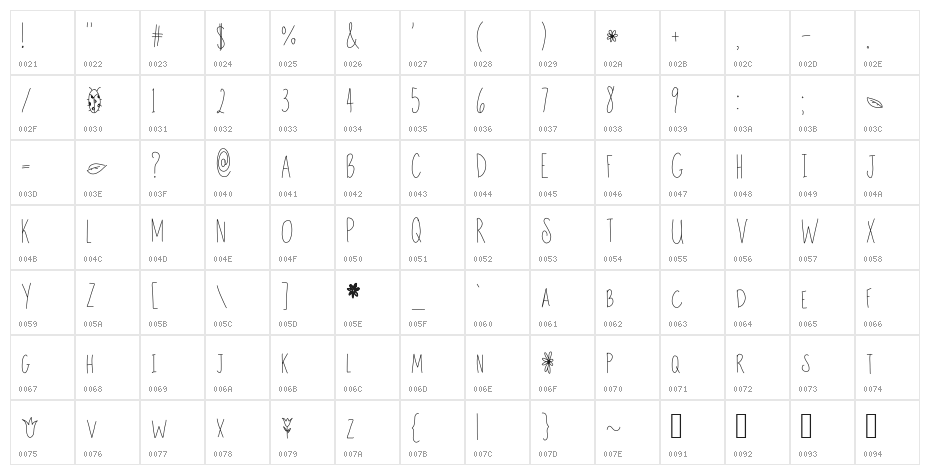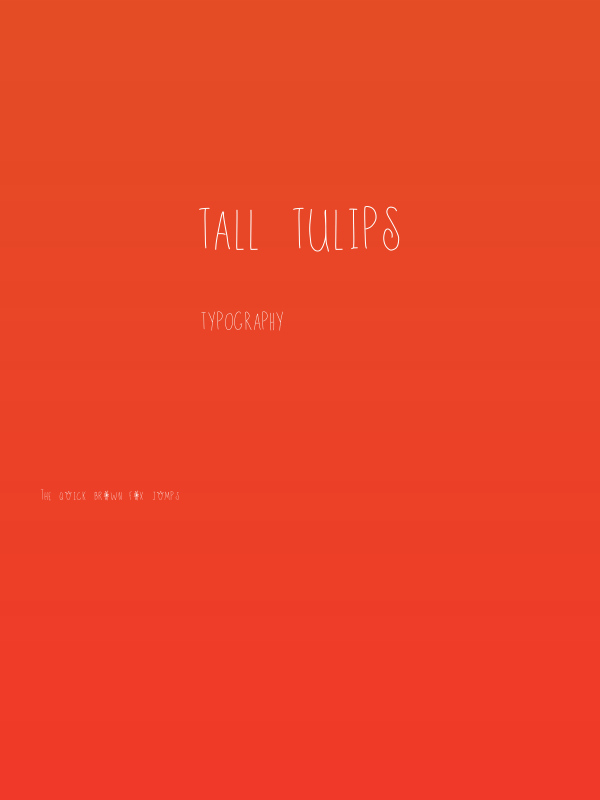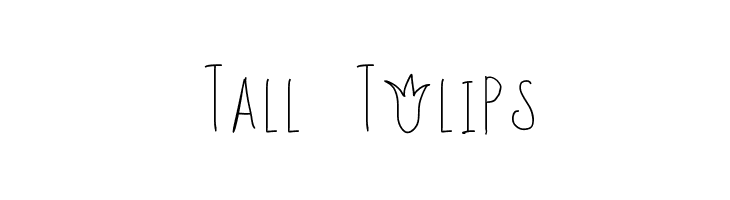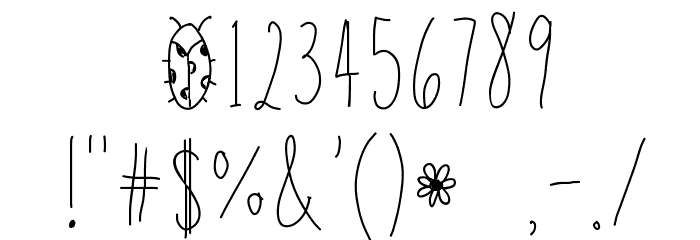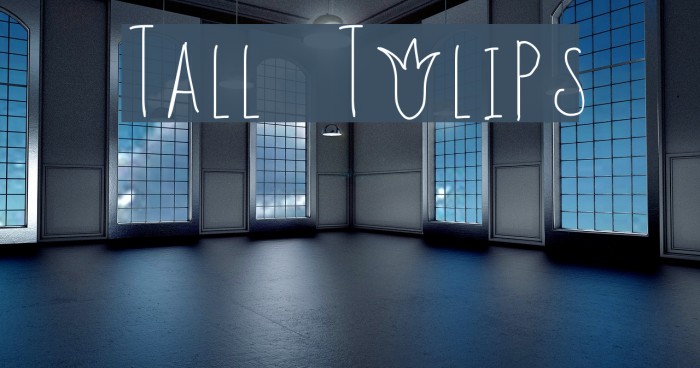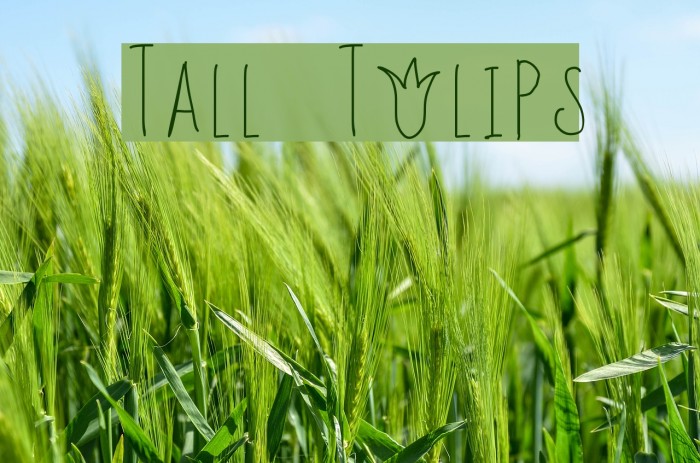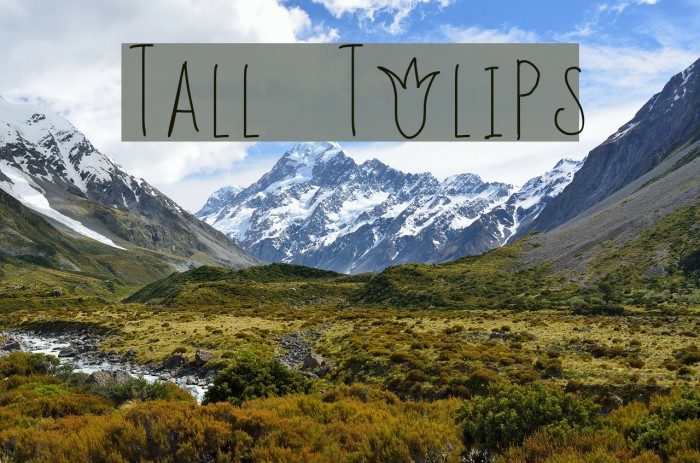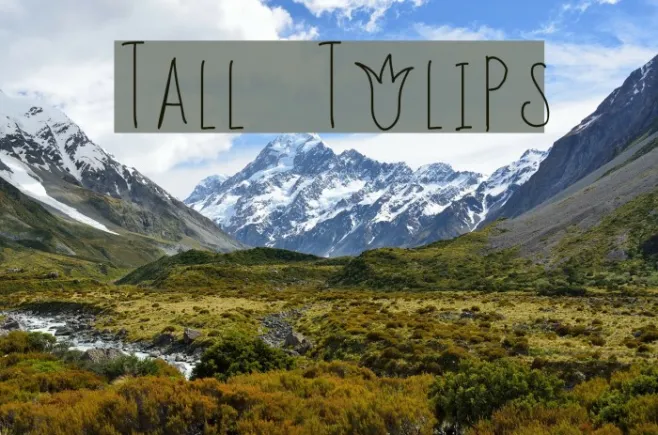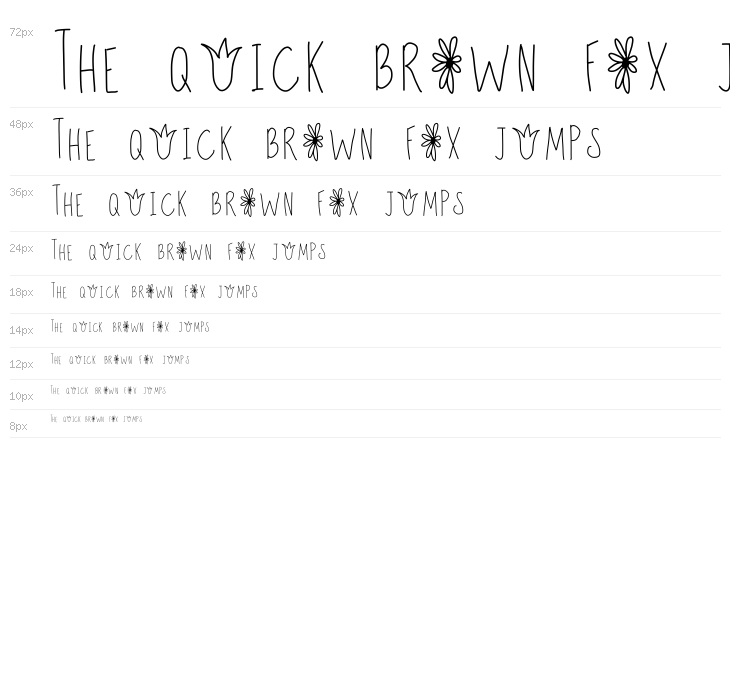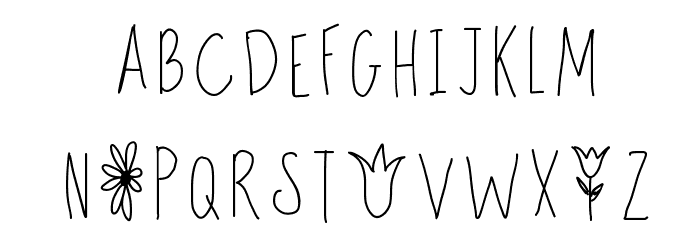
Tall Tulips Font
Tall Tulips Description
This font features a whimsical and playful design, characterized by tall, slender letters with a hand-drawn aesthetic. The uppercase and lowercase letters maintain a consistent height, contributing to a cohesive and uniform appearance. The strokes are thin and slightly irregular, adding a touch of charm and personality. Unique decorative elements, such as floral motifs integrated into certain characters, enhance its playful nature. The numbers and special characters follow the same slender and quirky style, making this font ideal for creative and artistic projects. Its overall appearance is light-hearted and imaginative, perfect for conveying a sense of fun and creativity.
| Proposed Projects | Ideal for greeting cards, children's books, playful branding, and creative posters. |